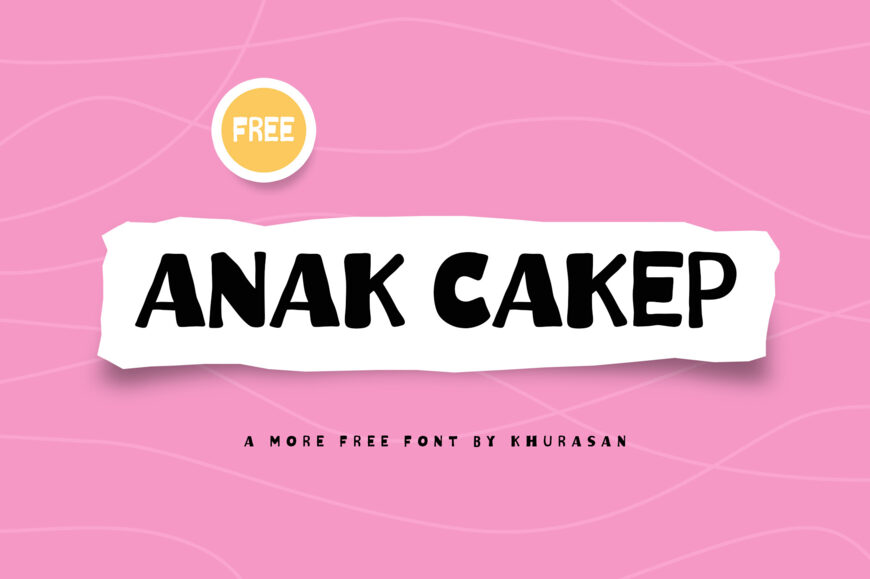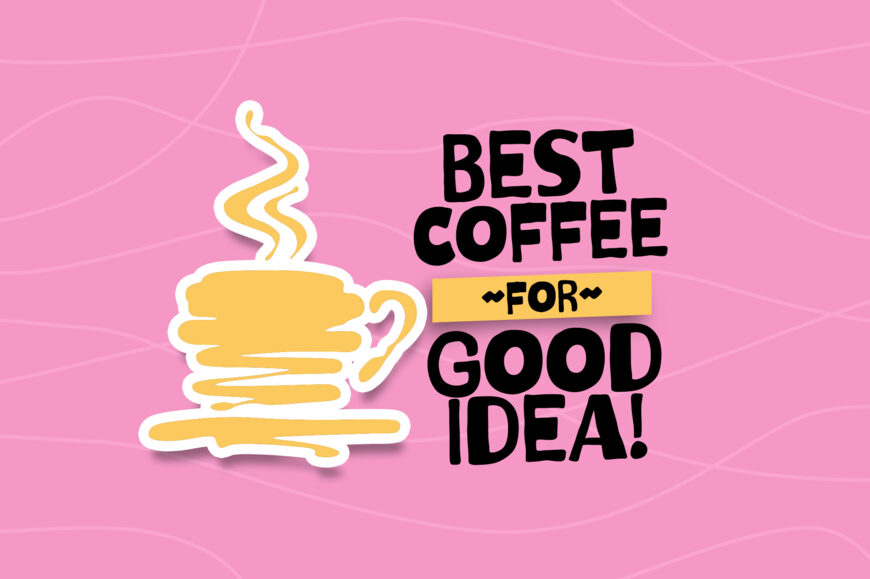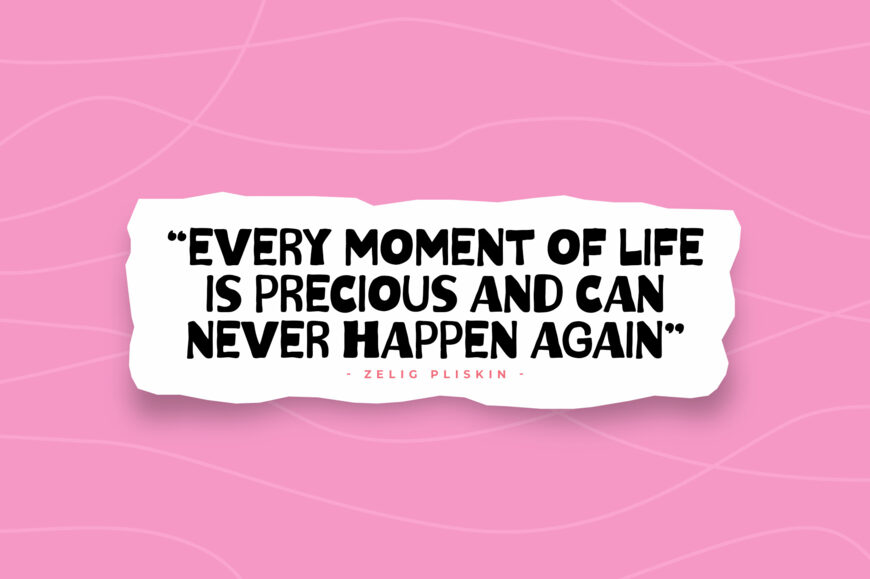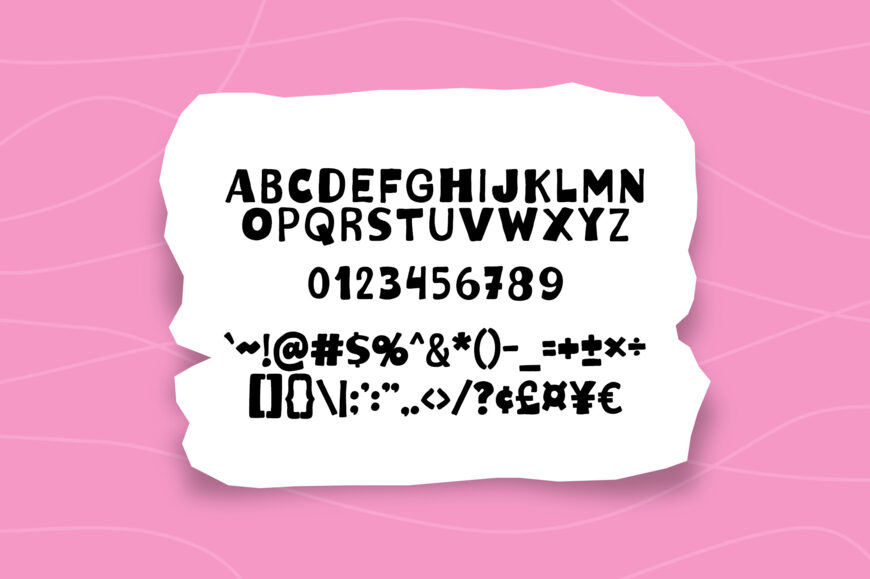
Anak Cakep Font is a cute and playful display typeface designed by Khurasan. Its cheerful, modern character makes it a great choice for kids’ projects, school designs, festive graphics, posters, branding, invitations, stickers, and social media content. With its fun and friendly appearance, Anak Cakep adds a lively personality to creative designs that need a charming and approachable look.